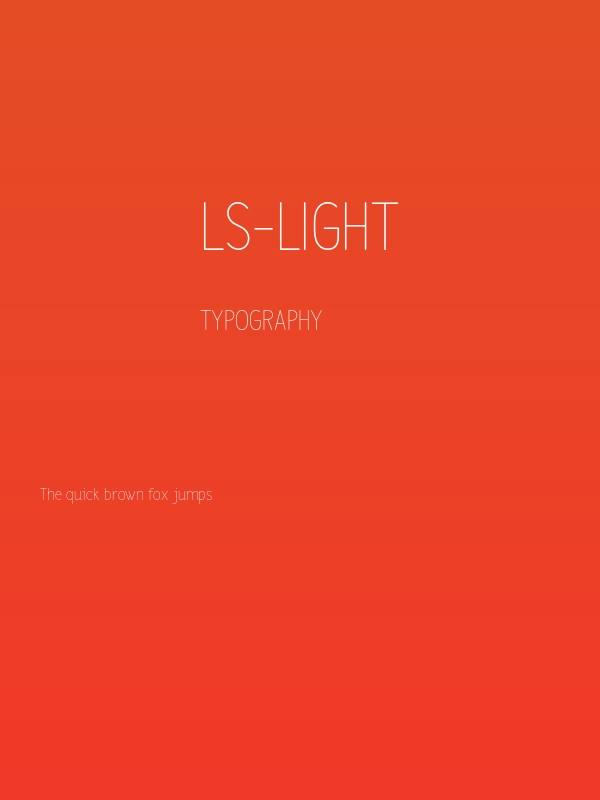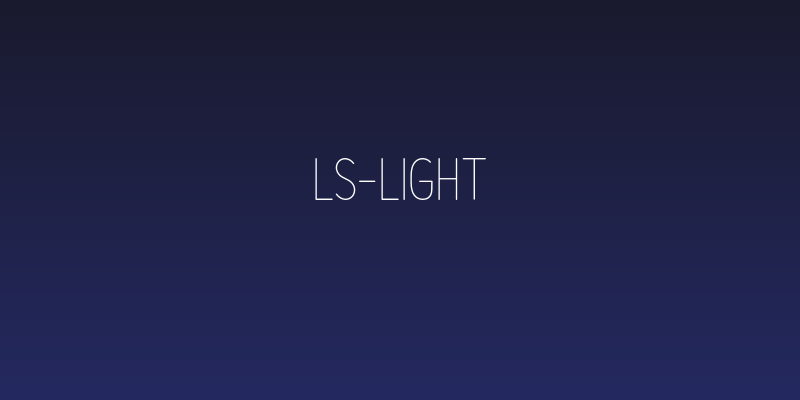
LS-Light Font
LS-Light Description
This font features a clean and modern sans-serif design with a light weight, characterized by its thin strokes and minimalistic appearance. The characters are evenly spaced, providing a balanced and airy feel. The uppercase letters are tall and narrow, while the lowercase letters maintain a consistent height, contributing to the font's uniformity. The numerals are clear and legible, matching the overall sleek aesthetic. Special characters are included, maintaining the same thin and elegant style. This font is versatile and suitable for a variety of design applications, offering a contemporary look that is both stylish and functional.
| Use Case | Headlines, Body text, Logos |
| Proposed Projects | Ideal for branding, web design, editorial layouts, and minimalist posters. |